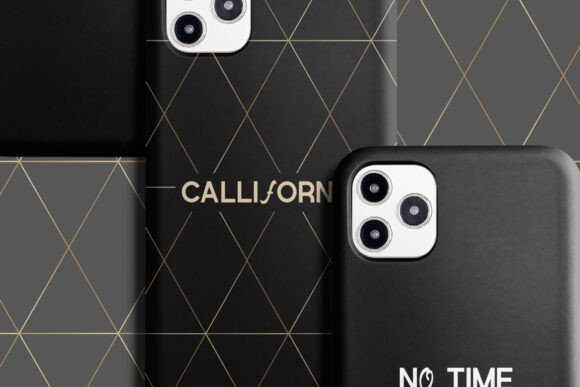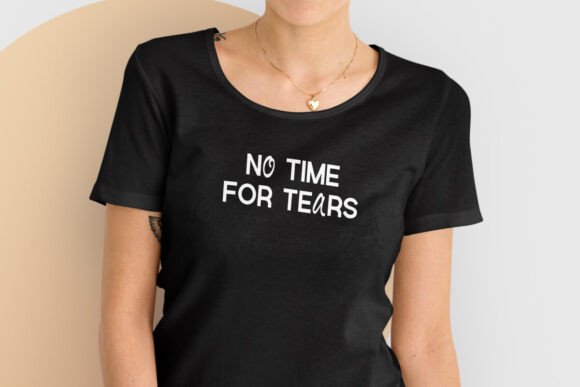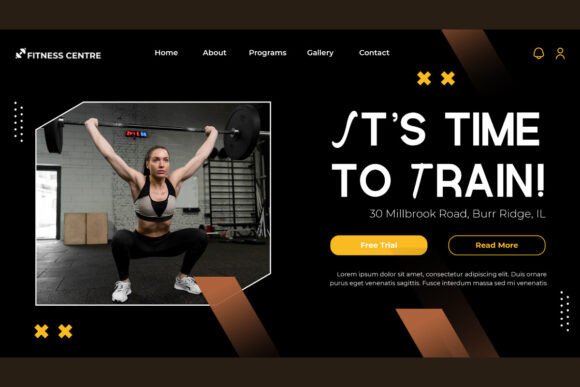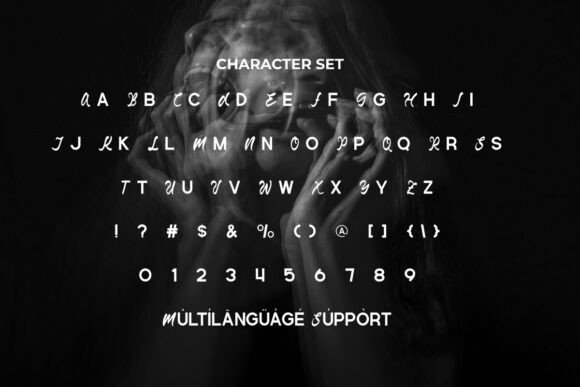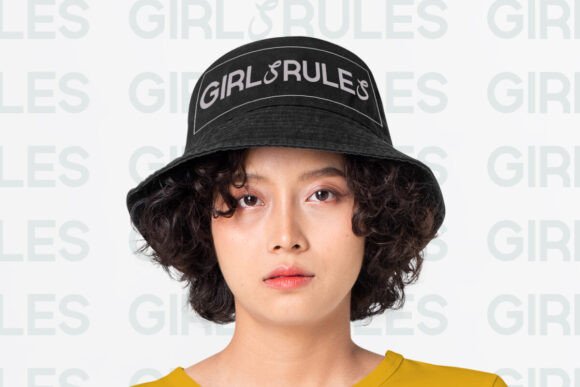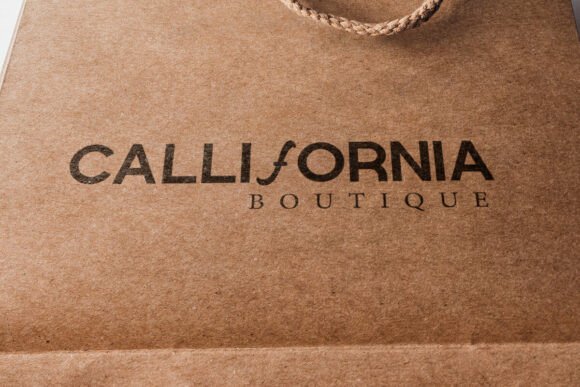
Introduction to Screamys Font Font
Fonts play a crucial role in design, and the Screamys Font font is a typeface that brings both character and versatility to any project. Whether you’re working on a branding project, a website, or a print design, the Screamys Font font offers a unique style that can elevate your work.
Screamys Font is a mysterious exclusive and luxurious modern display font with special two styles combination.
This font consists of a combination of Script for uppercase and Sans Serif for lowercase which exudes a fancy impression It will be good for any designs, such as brand image, cover, custom design, invitation, label, marketing material, menu, poster, product packaging, quote, signage, stationery, web, and many more.
The Screamys Font font is more than just a typeface – it’s a design tool that helps you communicate your message with style and clarity. Its unique character set and versatile design make it suitable for a wide range of applications, from elegant invitations to bold headlines.
With its carefully crafted letterforms and balanced proportions, the Screamys Font font ensures readability and visual appeal across all mediums.
The Screamys Font font stands out with its unique design, exceptional readability, and versatility across various design applications.